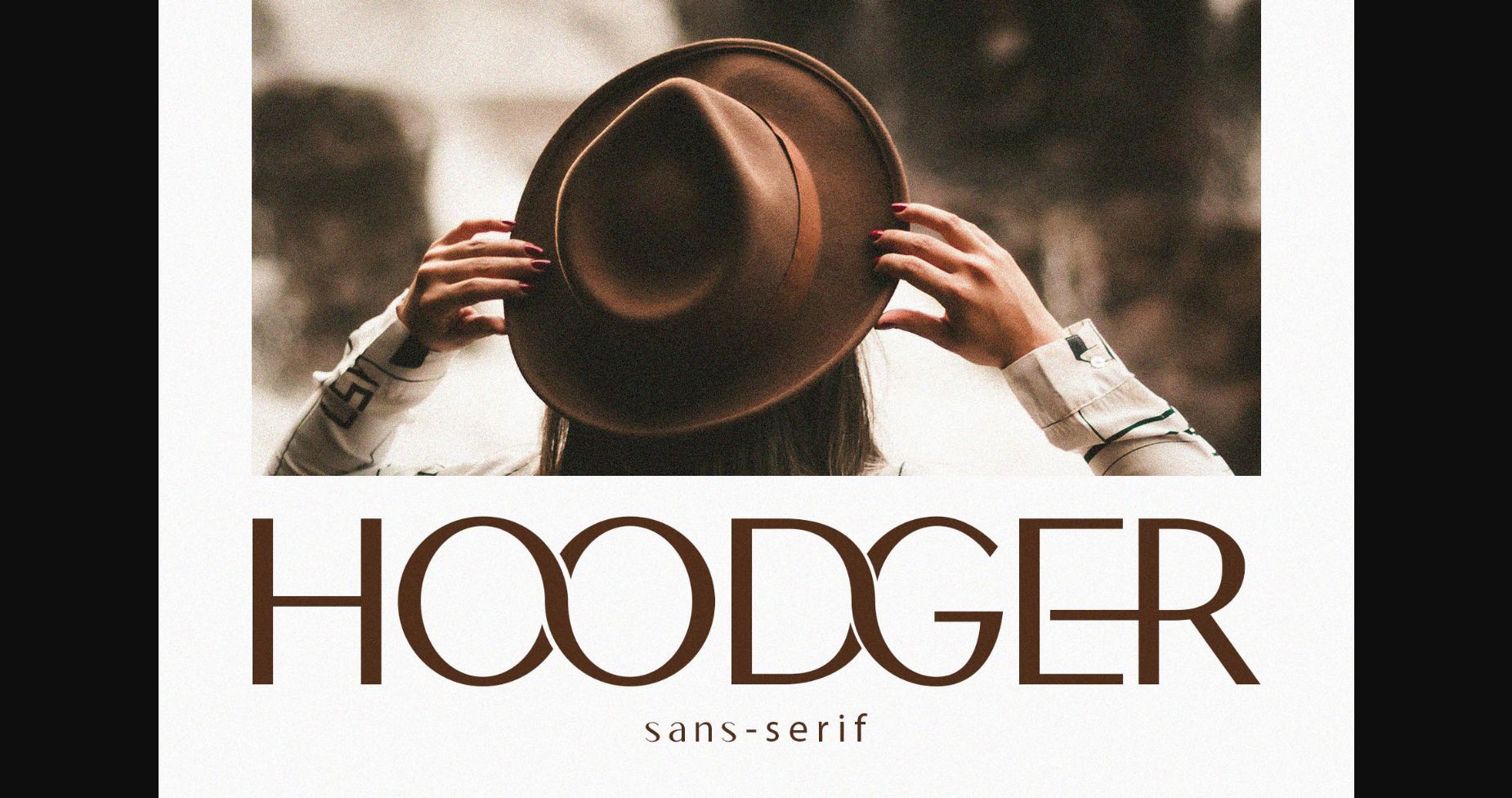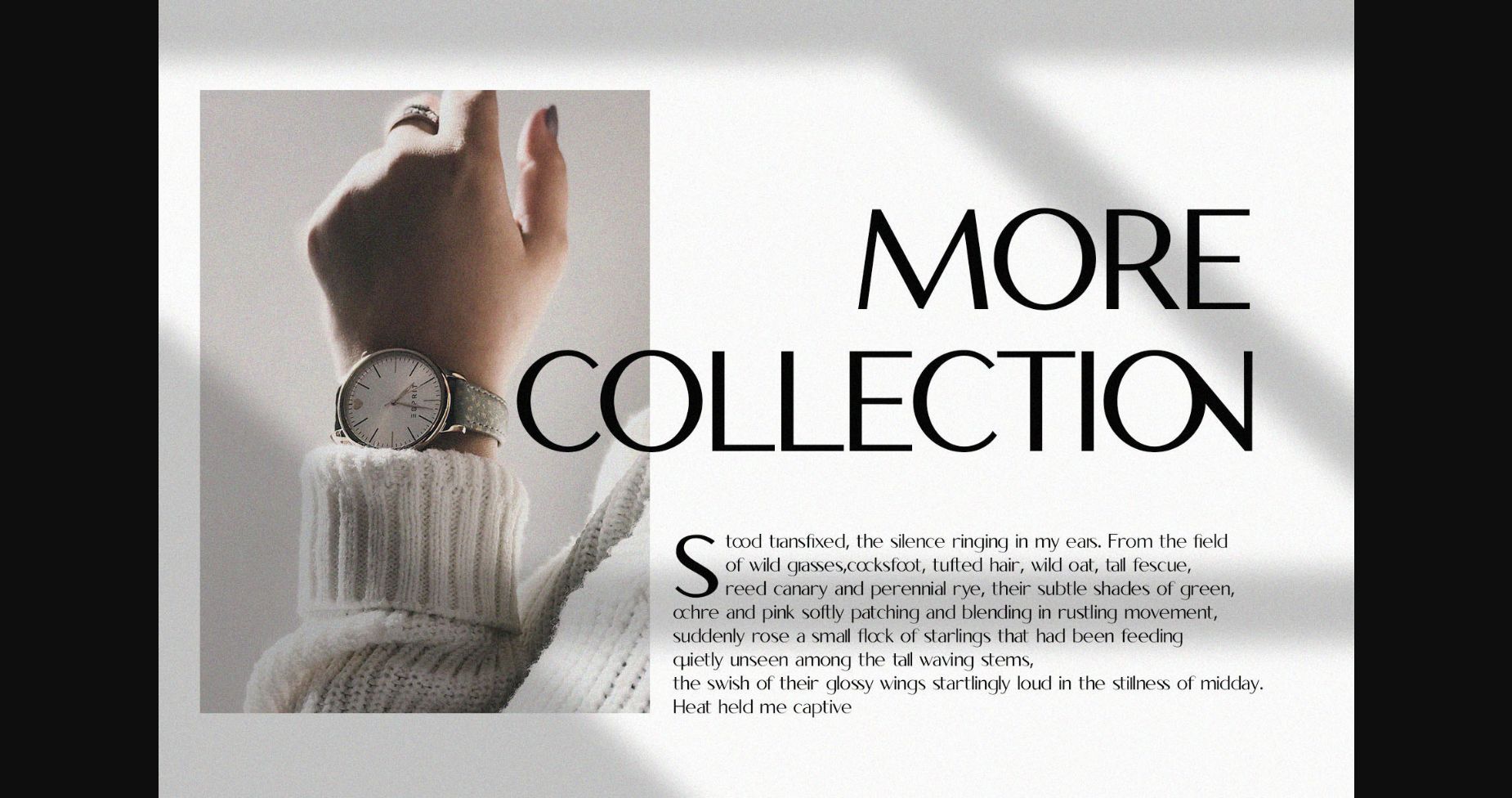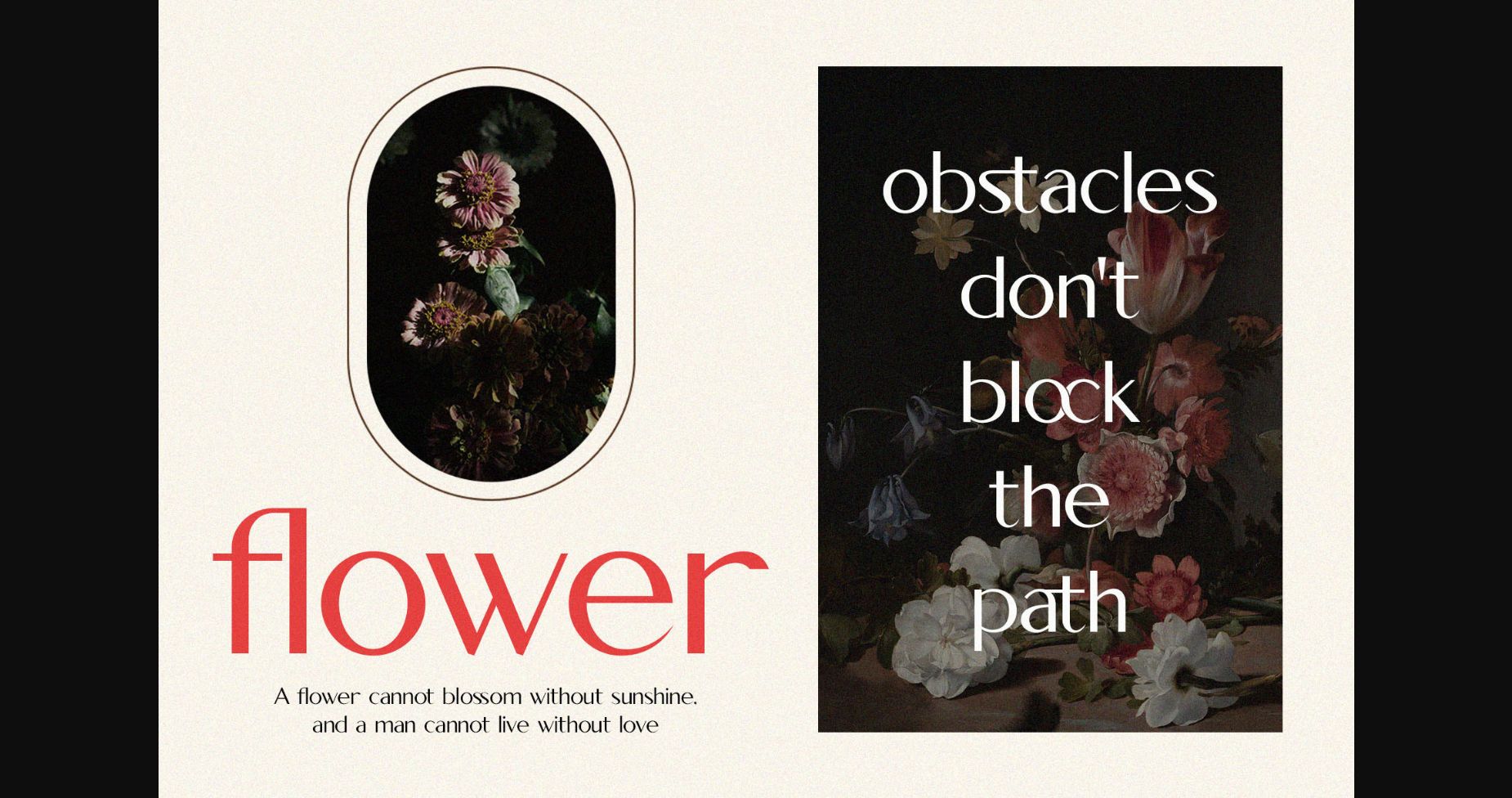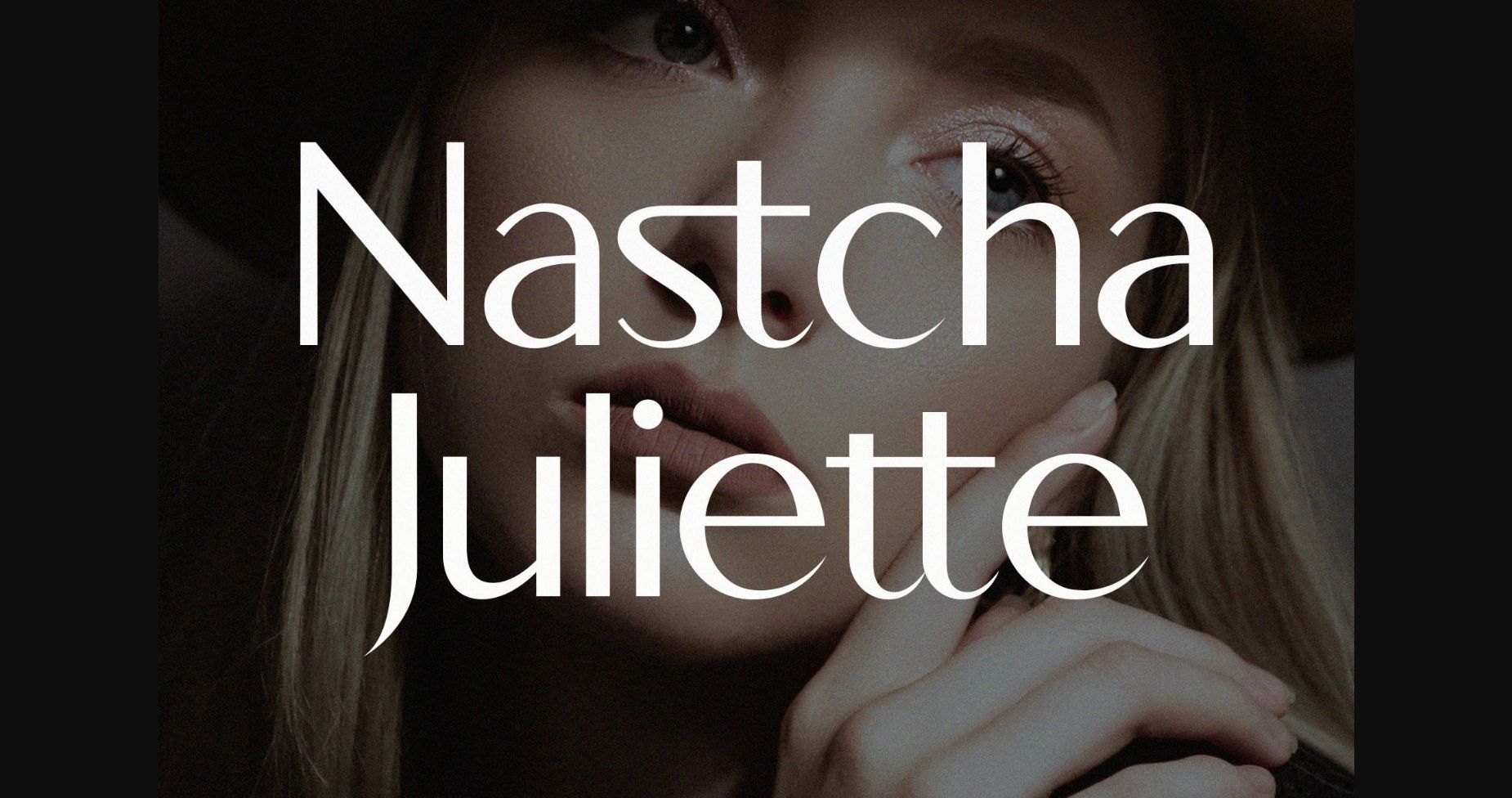
Hoodger Font
About Hoodger Font
Hoodger is a sleek and professional sans serif font that combines modernity and sophistication. Its clean and minimalist letterforms feature sharp edges and balanced proportions, giving it a sense of clarity and efficiency. The font’s sleek and sophisticated design is perfect for anything from branding to editorial design. Hoodger’s professional and elegant style is sure to make a lasting impression.